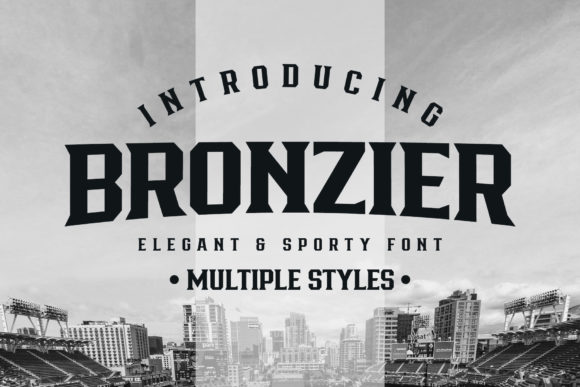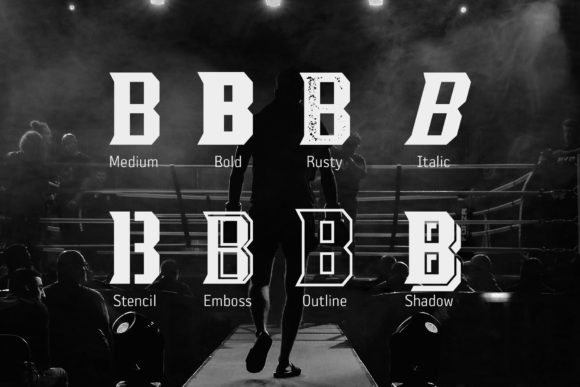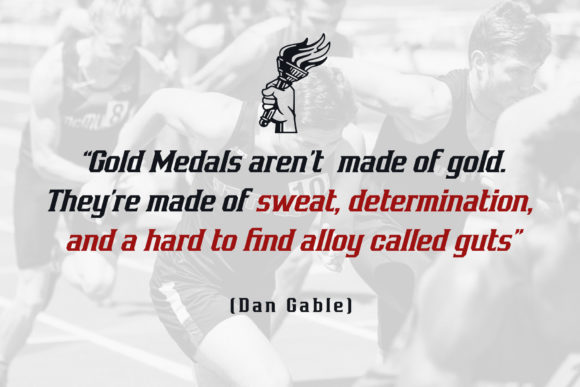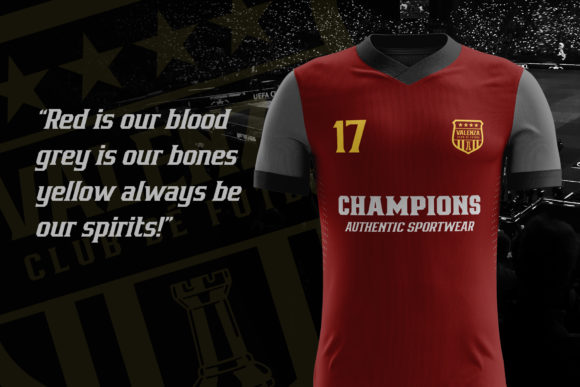
Bronzier Font: A Bold Serif for Logo Design & Sport Branding!
About the Bronzier Font
Make a bold statement with Bronzier Font, a powerful and memorable font. Bronzier is a strong serif font with 8 different styles. It’s designed with a bold and sharp pencil, emphasizing its raw and sincere look!
Bronzier excels in headlines, logos, and short impactful text for branding projects. Its strong serifs provide a sense of authority, making it ideal for luxury goods packaging or posters promoting high-end products or events. Avoid using it for body text or long-form content; its boldness can become overwhelming and hinder readability.
The font’s core personality is bold and assertive yet refined. It projects confidence and sophistication.
Pair Bronzier with a clean sans-serif like Montserrat for a contemporary feel or a delicate script font such as Lora for a touch of elegance to soften its sharp edges. For a more traditional approach, a neutral serif like Garamond would create a balanced and timeless look.
Bronzier Font Usage Examples
Bronzier Font Example